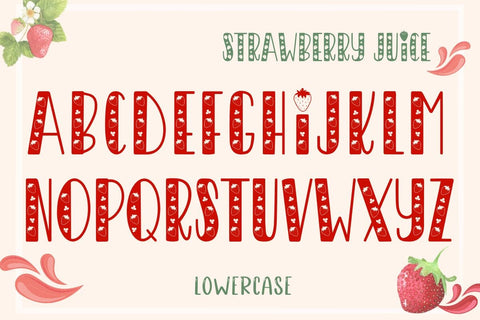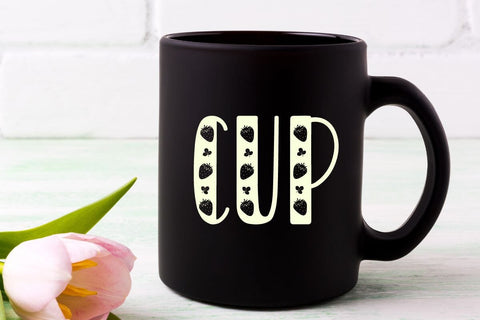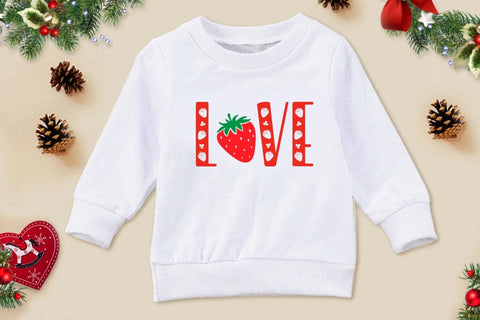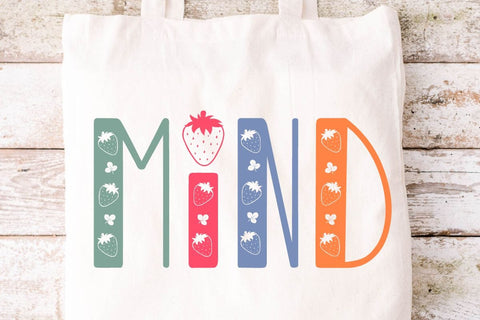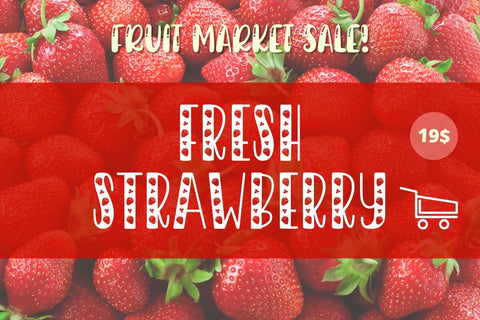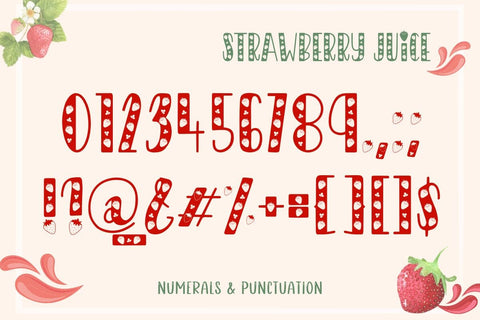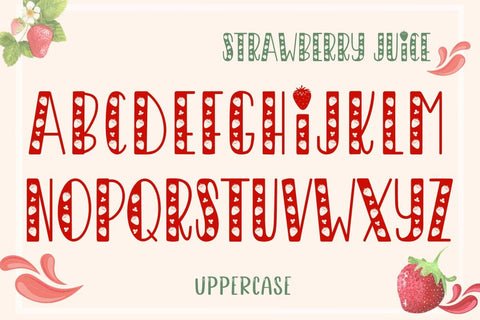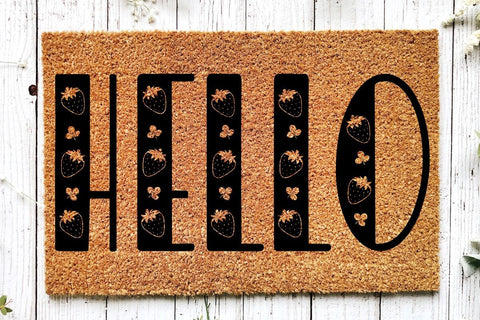
Strawberry - Cute Display Font
Strawberry Juice is a decorative font. It is a font that brings strawberry elements into the handwritten font, making this font look cute and quirky. Perfect for creating a wide variety of new designs to match products such as banners, content, mugs, cards, shirts, stationery, social media posts, and more!